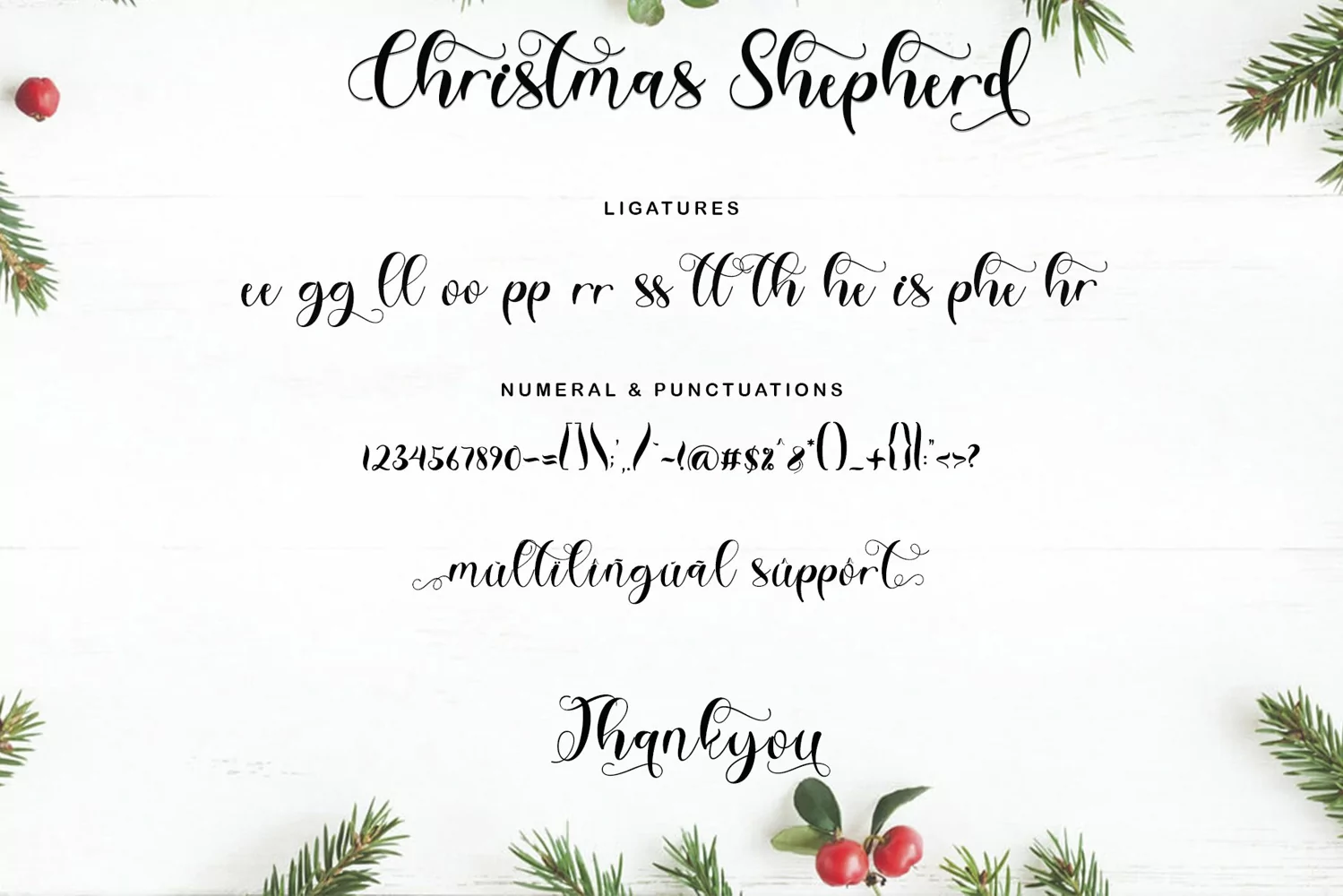
"Christmas Shepherd" is a calligraphy script font with a Christmas theme. This font is very beautiful with its unique shape and has a perfect curve of letters. This font is equipped with uppercase, lowercase, swash, titling, alternates, ligatures, numeral and punctuation, and multilingual support. "Christmas Shepherd" is perfect for Christmas, valentine, winter, thanksgiving, wedding, quotes, social media, invitations, birthday, sublimation, stickers, and more.